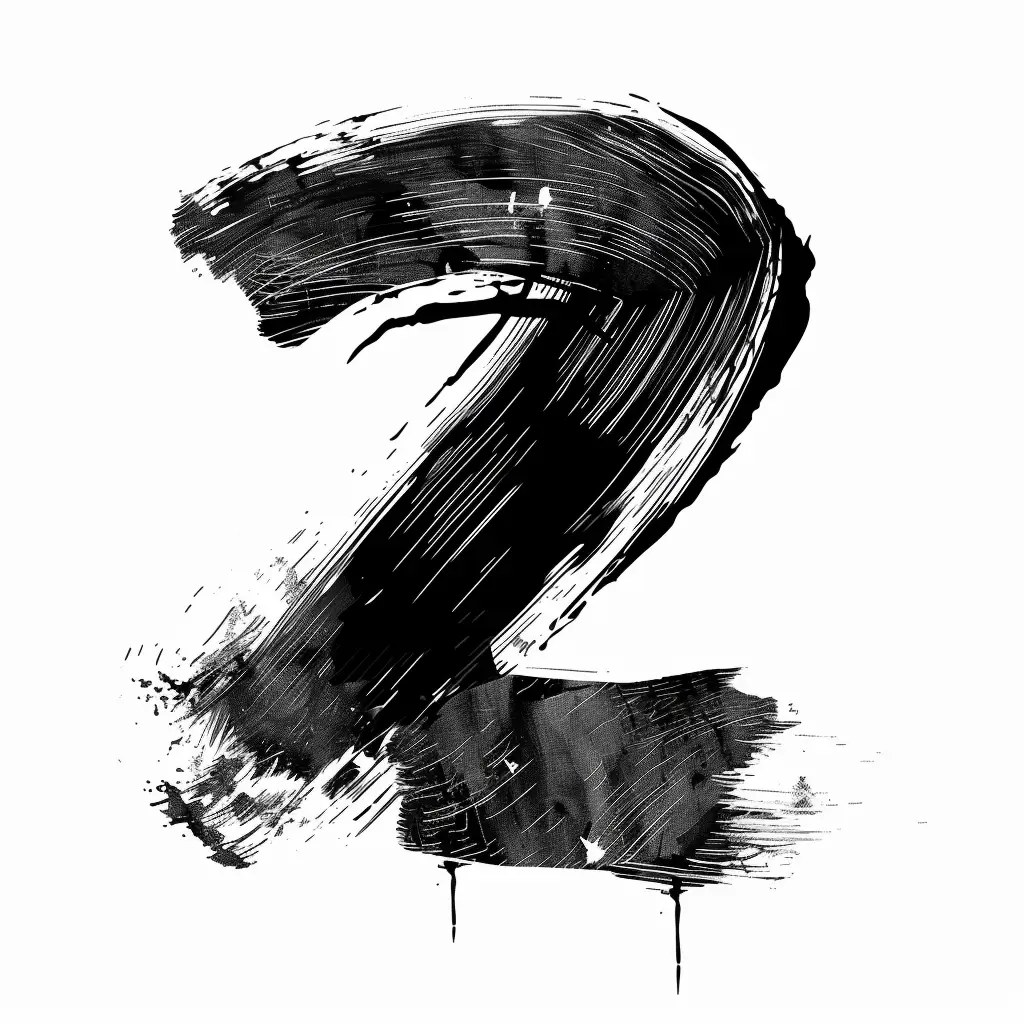
This image features a stylized, hand-painted numeral "2" rendered in bold black brushstrokes against a plain white background. The design employs a dynamic, textured brush technique with visible streaks, splatters, and drips, creating a raw, artistic aesthetic. The high-contrast black-and-white palette emphasizes the fluid, expressive lines and the organic, imperfect edges of the numeral.